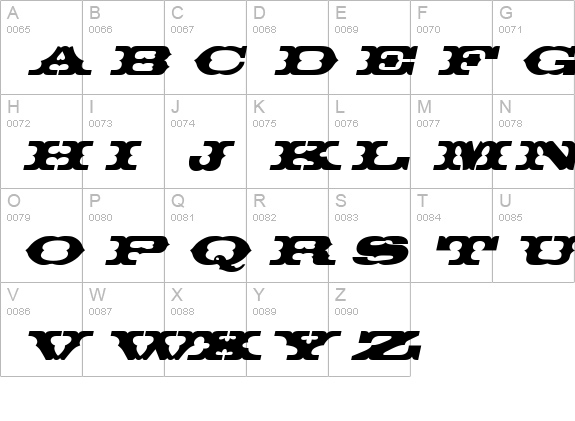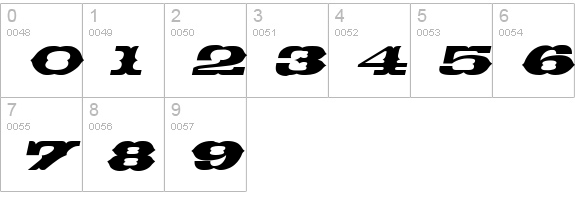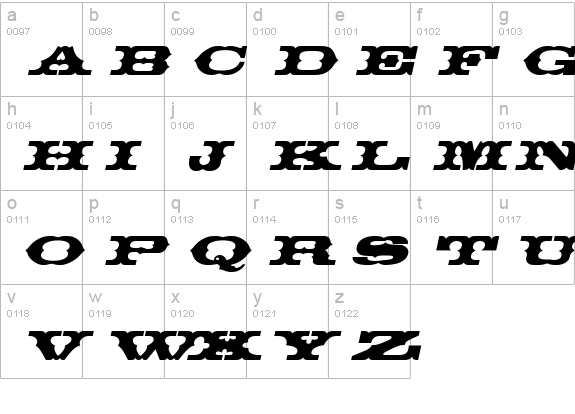
Thunder row Italic is a distinctive, italic variant in the Thunder typeface family \xE2\x80\x94 well suited to design and typography projects.
Thunder Row Italic is a striking and captivating font that exudes a sense of power and intensity. Its bold and slanted letterforms command attention and create a dramatic visual impact. With Thunder Row Italic, your designs are sure to make a bold statement and leave a lasting impression. This dynamic font is perfect for a wide range of creative projects, such as logos, posters, headlines, and branding materials. Its unique italic style adds a touch of elegance and sophistication, making it suitable for both modern and classic designs. But what makes Thunder Row Italic even more appealing is the fact that it is available for free! You can easily download this incredible font at FontsMarket.com, a trusted source for high-quality fonts. Whether you are a professional designer or a hobbyist, Thunder Row Italic gives you the freedom to bring your creative visions to life without any cost. Featuring precise and well-defined letterforms, Thunder Row Italic ensures legibility and readability, even at smaller sizes. Its bold strokes and distinctive slant make it a standout choice for titles and headings, allowing your text to effortlessly catch the eye and draw the viewer in. With Thunder Row Italic, you can easily convey a sense of strength, power, and excitement in your designs. Its dynamic and energetic appearance adds depth and personality to any project, making it a versatile choice for various creative endeavors. Download Thunder Row Italic for free at FontsMarket.com and unleash your creativity with this stunning font. Whether you are designing a striking logo, a captivating poster, or a memorable headline, Thunder Row Italic will help you make a lasting impression. Don't miss out on this fantastic opportunity to enhance your designs with this freely available font.